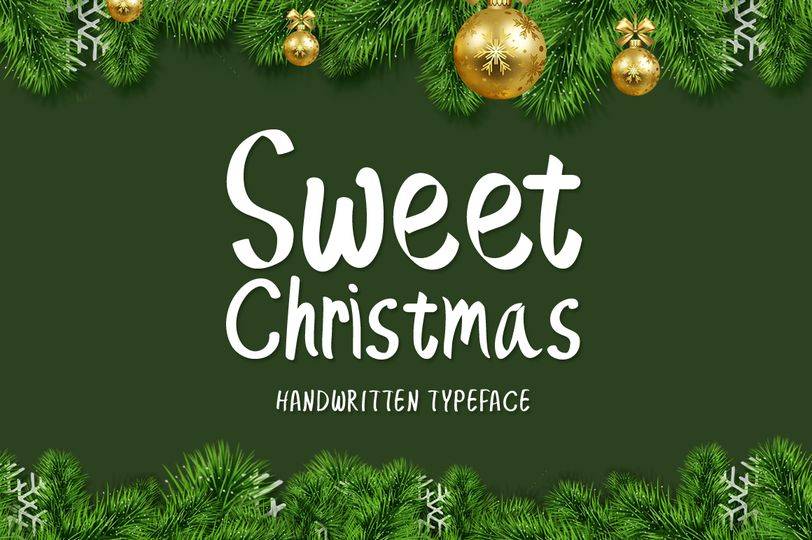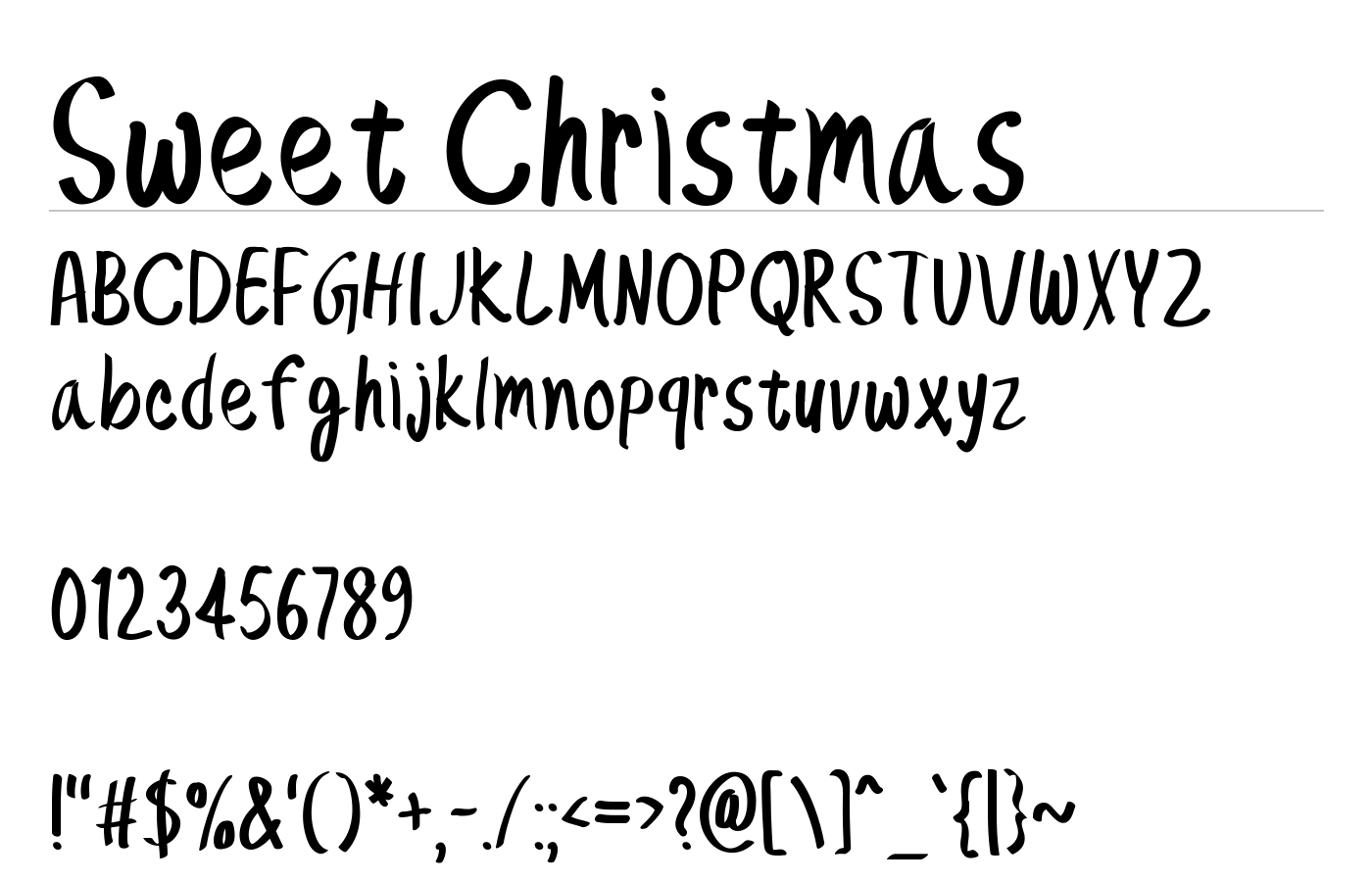
Sweet Christmas Font is a playful and casual sans serif with a hand-drawn feel, featuring irregular strokes and a lively, slightly whimsical style. Its moderate weight and open spacing make it highly legible while maintaining a warm, friendly personality, perfect for festive designs, children's projects, and creative branding. This font works best in headlines, greeting cards, and fun packaging where a cheerful and approachable vibe is desired.
Sweet Christmas Font